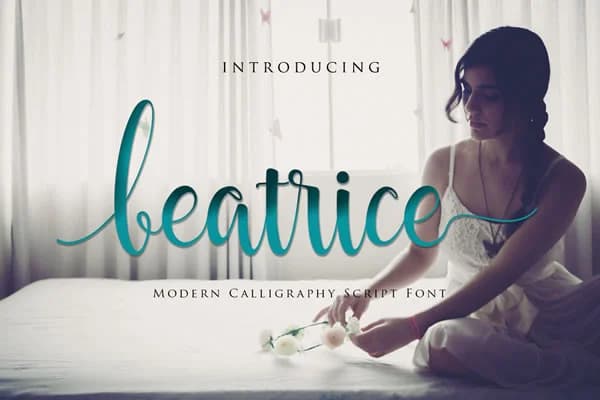
About Beatrice Font
Beatrice by Jorse Creative is a handwritten script font that merges calligraphic sophistication with contemporary hand-drawn warmth. The typeface combines the organic feel of genuine pen-on-paper work with disciplined letterforms that maintain excellent clarity across different print sizes and digital displays. This balance allows designers to use the script confidently, whether for display purposes or supporting body text. This versatile script excels in wedding invitation suites where elegant letterwork sets the tone for celebrations, as well as custom thank you cards that feel thoughtfully made by hand. It works beautifully on boutique product packaging for handmade goods like artisan candles and herbal skincare labels, giving small makers a professionally crafted aesthetic. Creatives also love Beatrice for personalized stationery systems, decorative gift tags, mug designs, and inspirational quote graphics. The flowing letterforms translate naturally to feminine brand identities and DIY event signage that demands visual presence without excessive styling. Beatrice's balanced proportions and readable curves make it a dependable choice for designers seeking genuine character in their typography. The script produces strong visual results across different applications, from digital mockups to professional printing, making it reliable for one-off personal projects and comprehensive brand identity systems alike. Find Beatrice on Creative Fabrica and bring this distinctive script into your design toolkit.
- Elegant, Flowing, Beatrice
Beatrice Font is a script font that shines as a display or heading face. Pair it with a clean sans-serif or serif font for body text β the contrast creates a clear hierarchy while the two styles stay balanced and easy to read.
Beatrice Font